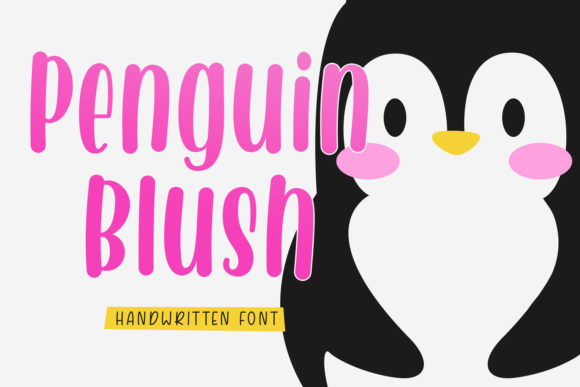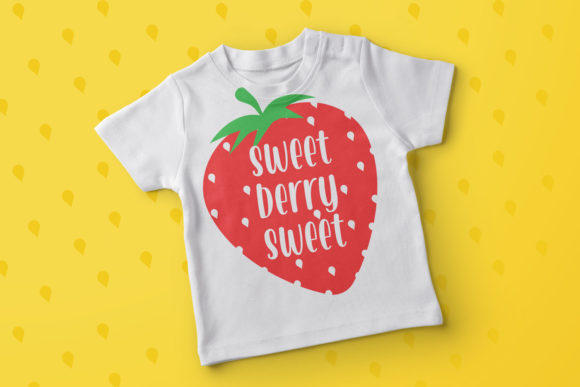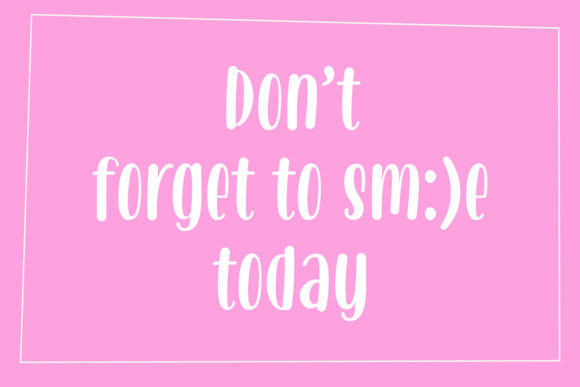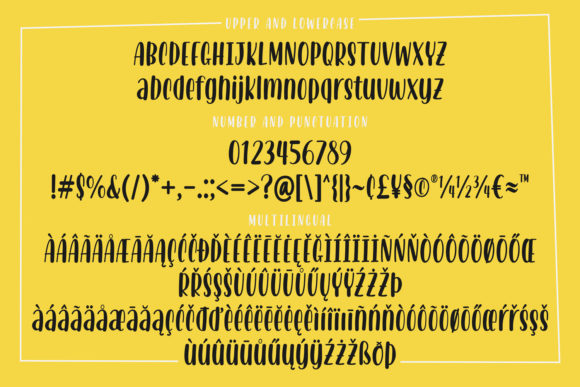
Penguin Blush Font
About Penguin Blush Font
Penguin Blush is a cool, relaxed and friendly handwritten font. Warm and jolly, this font will turn each of your project ideas into real works of art. Have fun with this beautiful font and explore its endless variations.